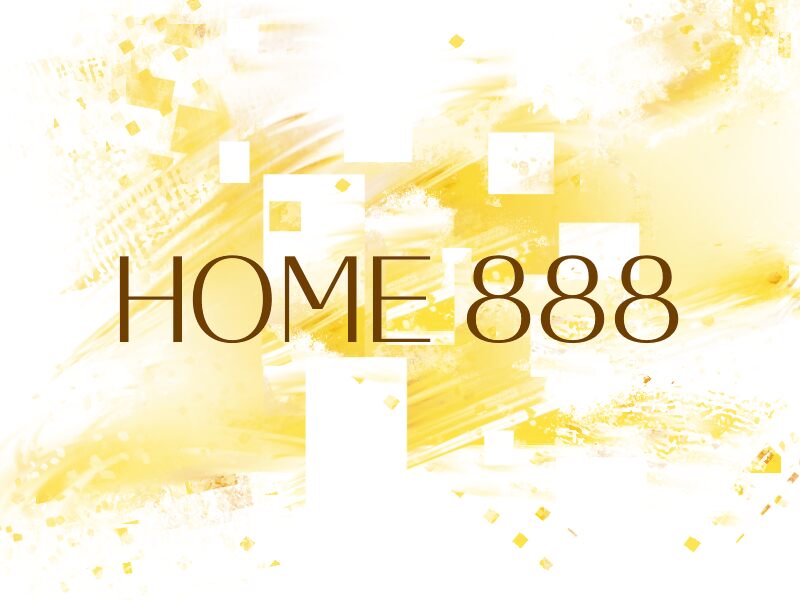
Home 888
Home 888 font was designed by Wep and is a classic sans serif typeface with a sophisticated and elegant appearance. Made for all purposes, this professional display element will work long-term no matter how many times you decide to edit material at hand. The timeless appeal it gives off is both aesthetic and important content-wise.
Use this free font to make posters, banners, business cards, invitations for private events or festivals, brochures in different sizes, portfolios or even magazines. Further options are newspaper design, book cover page writing (both title & body), web page construction as well as continuos use on mobile apps.